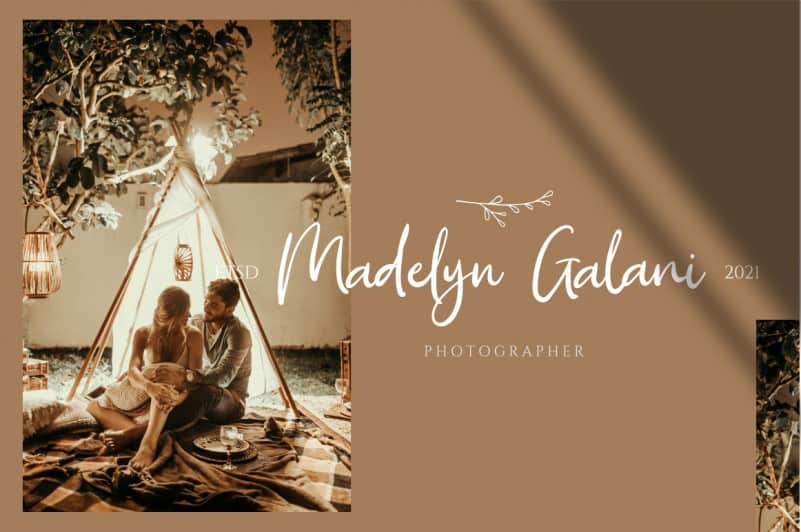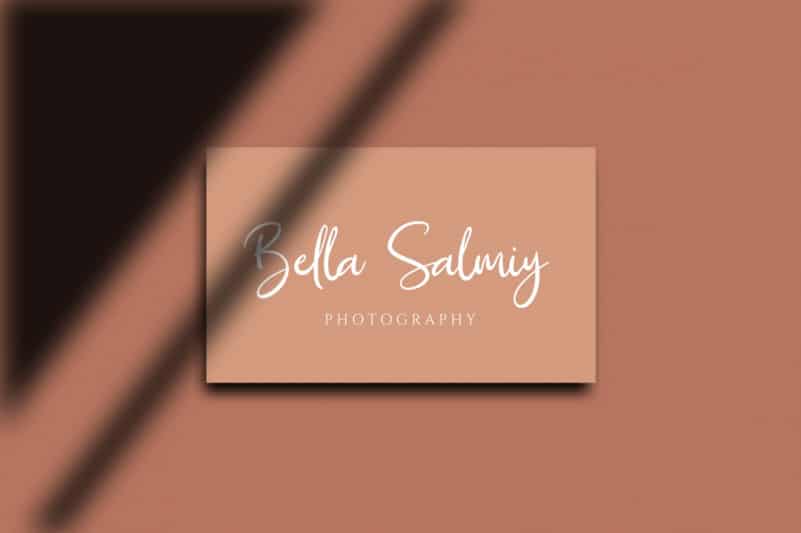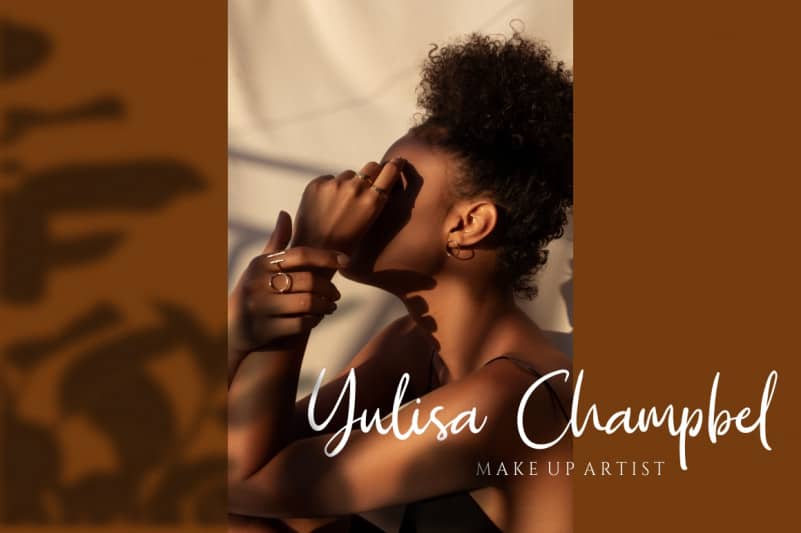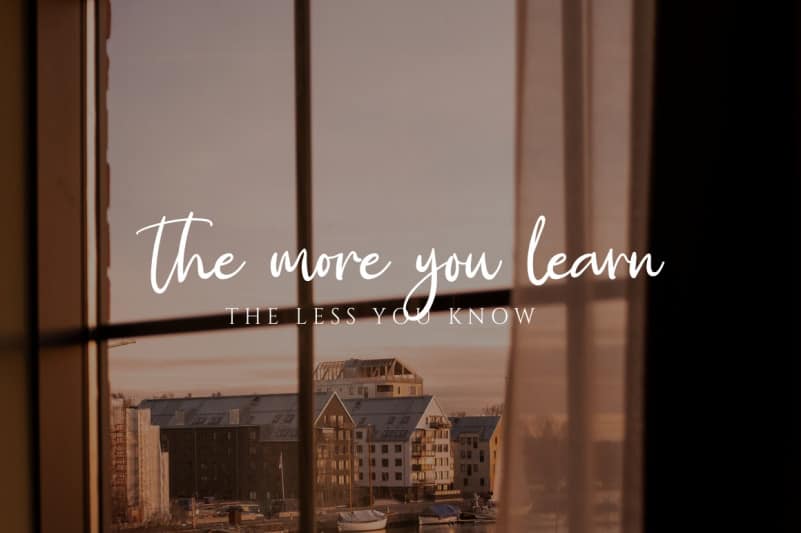
Kimie Roselyne Script Font is a new elegant modern script font that will look awesome on logos, branding materials, wedding and event stationery, social media overlays, cards and so on.